Script fonts are characterized by fluid strokes that can be seen in natural handwriting. They are formed by flourishes, swirls and exquisite lines, which give them a feminine touch. Such fonts are perfect for adding a personal touch to a corporate or personal design without worrying about being called a romantic.
Some designers overlook script fonts and often use either sans serif or serif fonts. However, handwritten fonts are as useful as other font classifications. Finding the best script fonts is not easy though since not all of them are beautiful and readable. I assume that you may also have the same problem. To help you find what you want I have taken the effort to collect different kinds of script fonts in this post. This will prevent you from wasting your valuable time whenever you need a script font for a project.
Scriptina Regular – MORE INFO
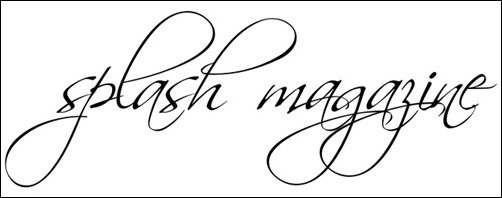
Respective Swashes – MORE INFO
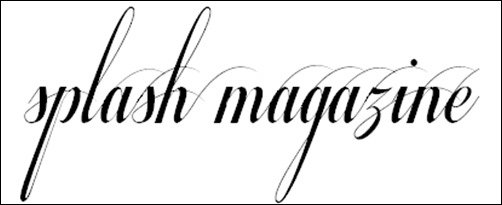
Lydia Puente – MORE INFO
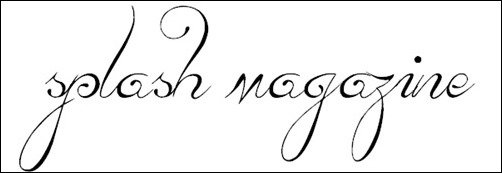
CANDY INC – MORE INFO
Ginga Font – MORE INFO
Precious – MORE INFO
Aphrodite Contextual – MORE INFO
Echinos Park Script – MORE INFO
England Hand DB Regular – MORE INFO
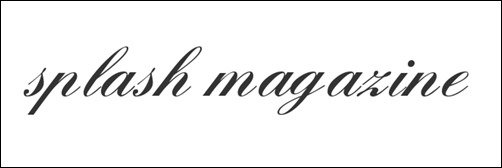
Rollerscript Smooth – MORE INFO
Dancing Script – MORE INFO
PF Champion Script Pro Bold – MORE INFO
Clementine Sketch – MORE INFO
Brother Tattoo – MORE INFO
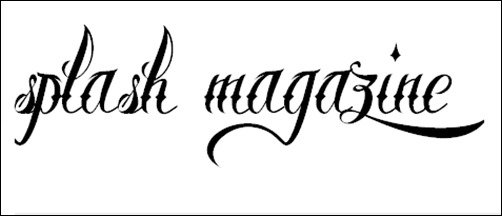
Simply Glamorous – MORE INFO
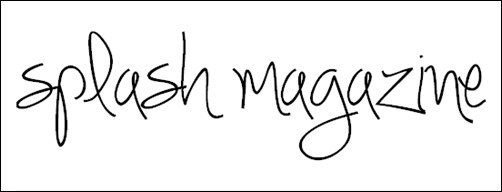
Carrington Regular – MORE INFO
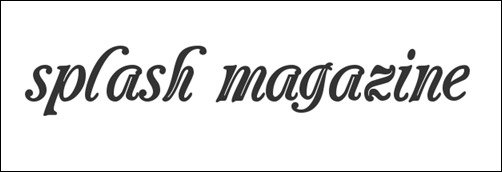
Champignon Alt Swash – MORE INFO
Affair Regular – MORE INFO
Krul Regular – MORE INFO
Porcelain Regular – MORE INFO